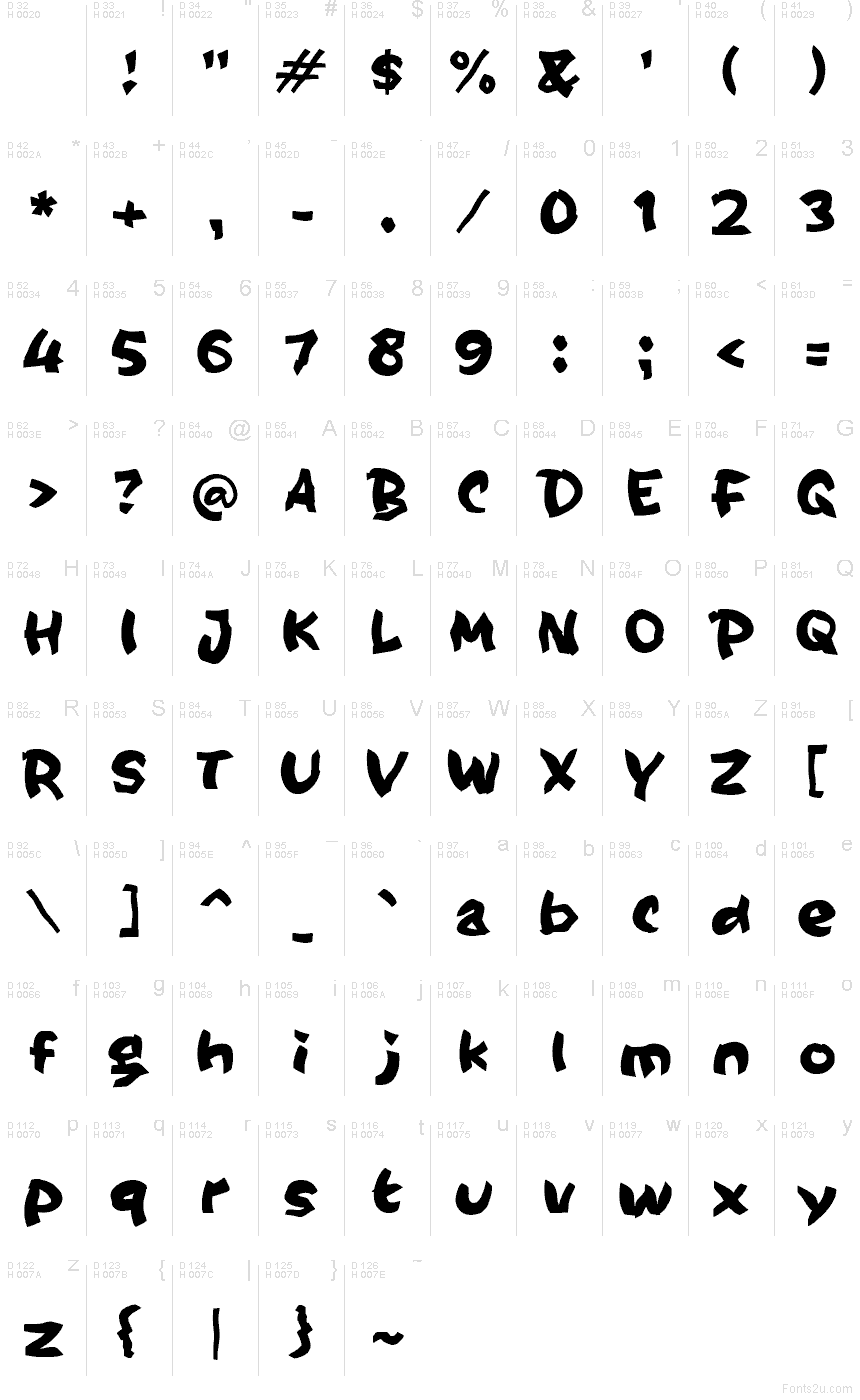
QAAREE
Qaaree font by wep is a free graffiti font that feels like it’s been swiped straight from a marker on a concrete wall. Thick, inky strokes twist and taper with just enough wobble to look human, not polished-by-software. The letters lean forward with a loose, fast motion, giving every word the energy of a rushed tag caught in the middle of the night.
Using Qaaree, you get a bold handstyle that shines on streetwear graphics, hip-hop or DJ flyers, YouTube thumbnails, event posters, stickers, and urban-themed branding. The chunky shapes stay readable even at smaller sizes, but this free font really comes alive when it’s big and loud. Try pairing Qaaree with a clean geometric sans for body text to let the graffiti forms take the spotlight.